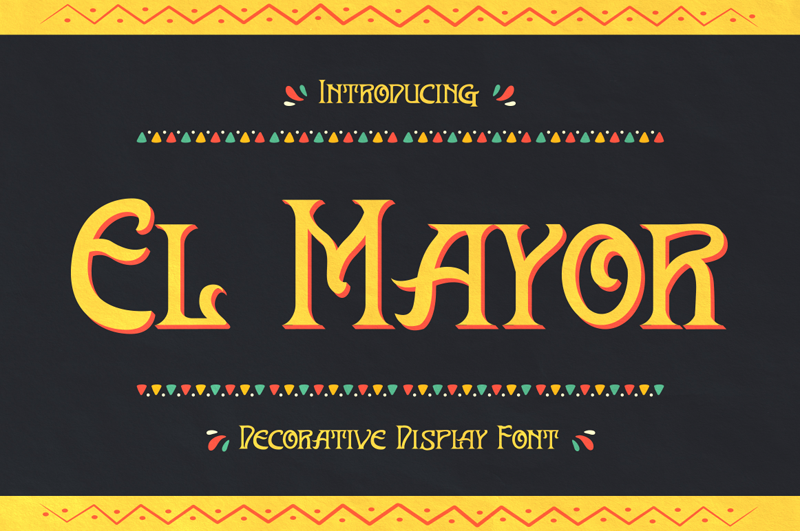
El Mayor is a decorative display font. The font has festival vibes. It will turn any design project into a stand out. El Mayor font is really great for a restaurant menu, business branding, clothing, quotes, headings, birthday invitations, posters, and many others. Full Version Download Here : https://typefactory.co/product/el-mayor-display-decorative-font/ https://www.creativefabrica.com/product/el-mayor/ref/501262/ |